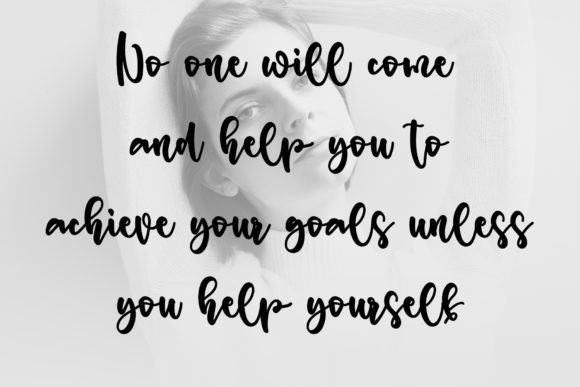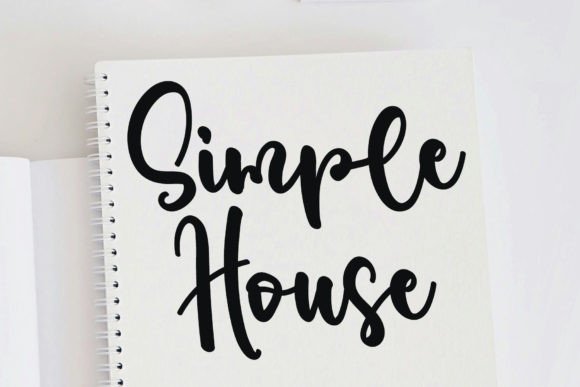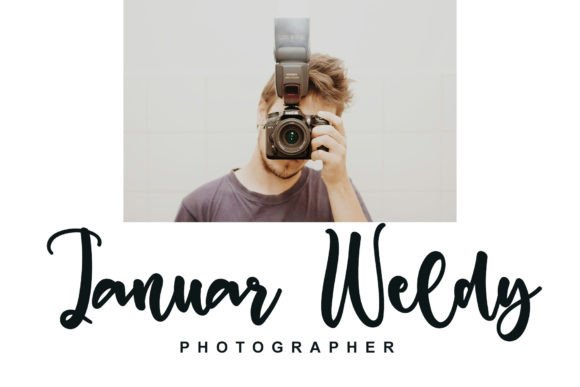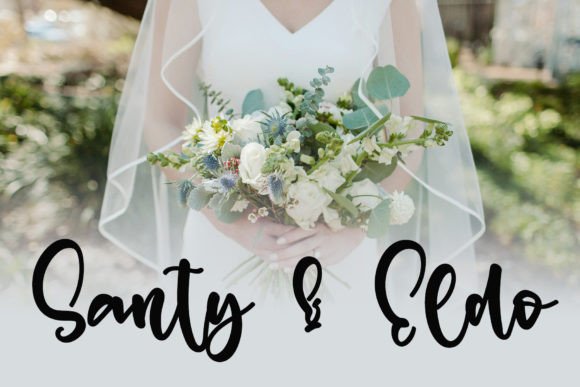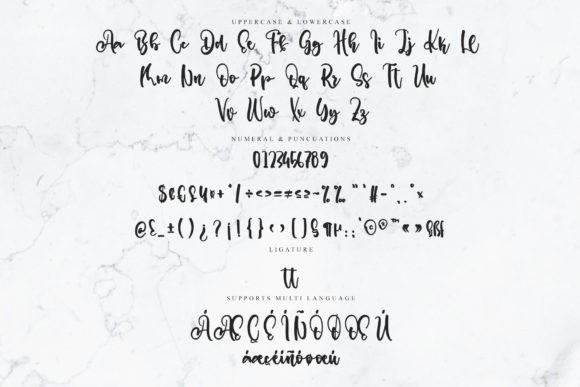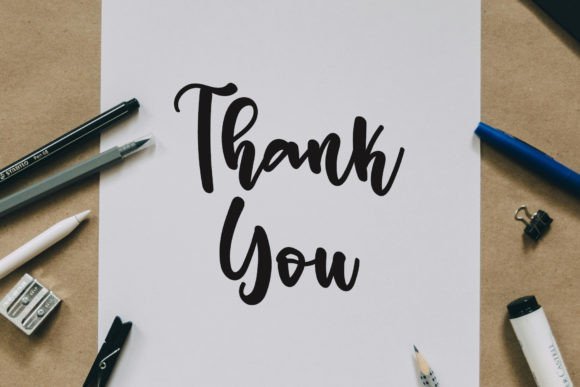
Grateful Christmas Font: Elevate Your Designs with Elegance and Delicacy
As the holiday season approaches, designers and crafters are on the lookout for the perfect typography to add a touch of elegance and festivity to their creations. If you’re searching for a font that embodies the spirit of Christmas with a delicate and refined aesthetic, look no further than the Grateful Christmas Font. This beautiful, handwritten typeface is designed to meet your diverse design needs, from logos and branding to social media posts, advertisements, and beyond.
Unwrap the Beauty of Grateful Christmas Font
Grateful Christmas Font is an elegant and delicate handwritten typeface that captures the essence of the holiday season with its intricate and refined letterforms. Its unique design makes it an excellent choice for a wide range of applications, including:
• Logos and branding: Create a lasting impression with a custom logo that exudes sophistication and festivity.
• Social media posts: Elevate your holiday-themed social media posts and make them stand out from the crowd.
• Advertisements: Add a touch of elegance to your holiday ads and make them more engaging.
• Business cards: Make a statement with beautifully designed business cards that reflect your brand’s personality.
• Wedding invitations: Add a romantic and festive touch to your wedding invitations and save-the-date cards.
• Product design: Create stunning product designs that showcase your brand’s attention to detail and commitment to quality.
The Power of PUA Encoding
One of the standout features of Grateful Christmas Font is its PUA (Private Use Area) encoding. This means that you can access all the glyphs and alternates with ease, giving you unparalleled flexibility and creative control. With PUA encoding, you can:
• Access a wide range of glyphs and alternates to customize your designs.
• Easily switch between different letterforms to create unique and eye-catching designs.
• Save time and effort by having all the tools you need at your fingertips.
Why Choose Grateful Christmas Font?
With so many fonts available, why choose Grateful Christmas Font? Here are just a few reasons why designers and crafters love this beautiful typeface:
• Elegant and delicate design that adds a touch of sophistication to any project.
• Versatile and adaptable, perfect for a wide range of design applications.
• PUA encoded for easy access to glyphs and alternates.
• Perfect for holiday-themed designs, but also suitable for other design projects throughout the year.
Tips and Inspiration for Using Grateful Christmas Font
To get the most out of Grateful Christmas Font, here are a few tips and inspiration ideas:
• Experiment with different font sizes and colors to create visual interest and hierarchy.
• Pair Grateful Christmas Font with other fonts to create a unique and eye-catching design.
• Use the font’s glyphs and alternates to add decorative elements and flourishes to your designs.
• Don’t be afraid to get creative and try new things – Grateful Christmas Font is a versatile tool that can be used in many different ways.
Font Name Grateful Christmas Font
Author YanStudio
Grateful Christmas Font is a beautiful and elegant handwritten typeface that is perfect for designers and crafters looking to add a touch of sophistication and festivity to their creations. With its PUA encoding and versatile design, this font is sure to become a go-to choice for a wide range of design applications. Whether you’re creating holiday-themed designs or simply looking for a elegant font for everyday use, Grateful Christmas Font is an excellent choice.